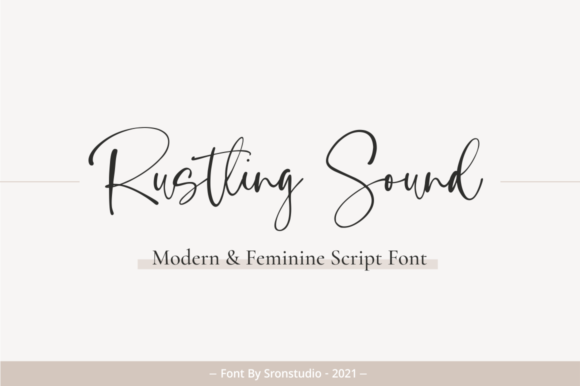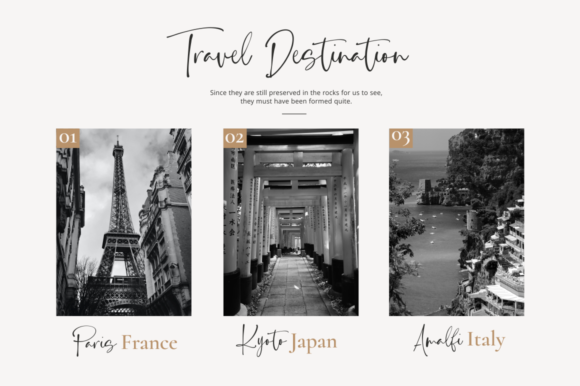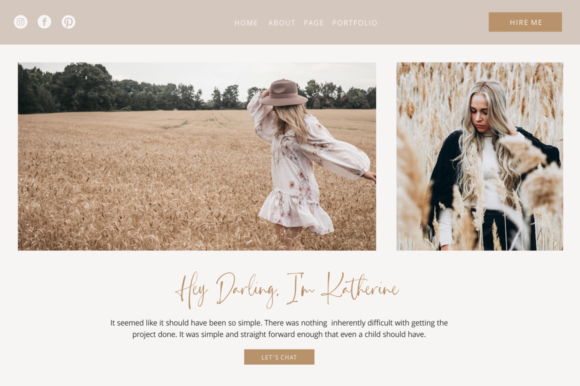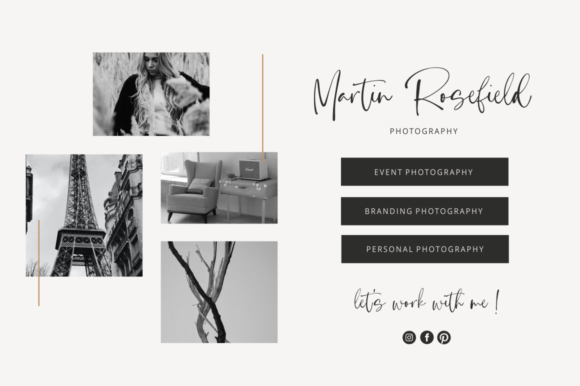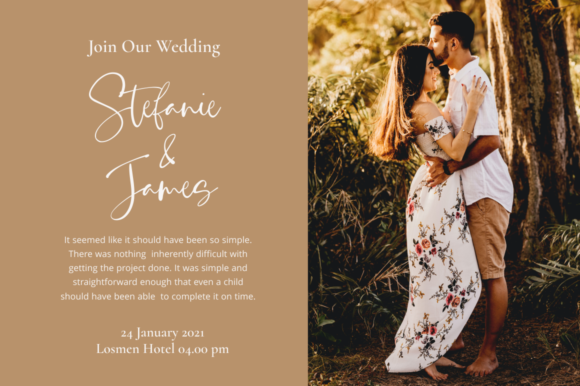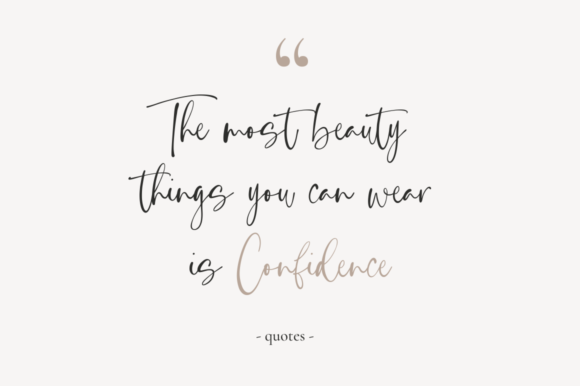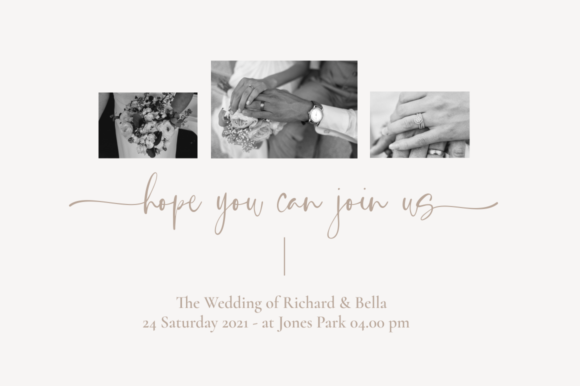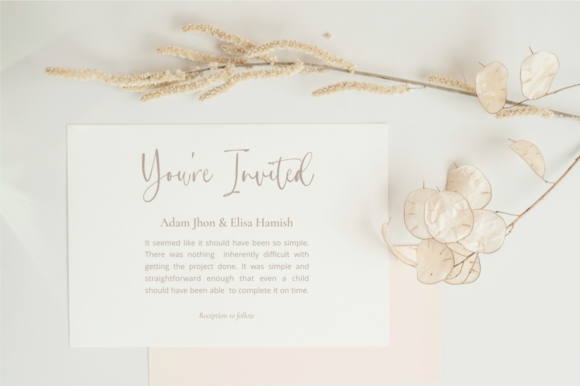
Rustling Sound Font
About Rustling Sound Font
Rustling Sound is a stylish and incredibly elegant handwritten font. It looks stunning on wedding invitations, thank you cards, quotes, greeting cards, logos, business cards and every other design which needs a handwritten touch.